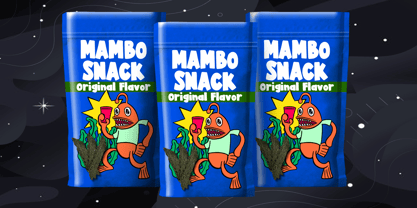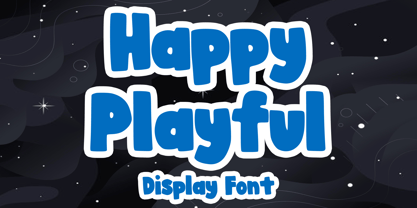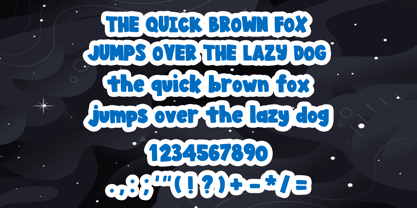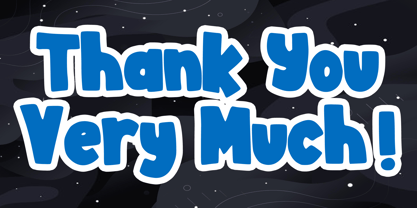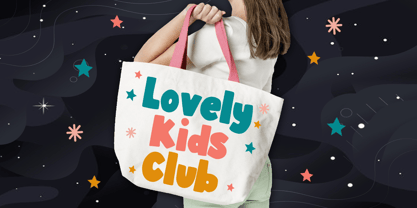
Happy Playful
The Happy Playful Font Family was designed by Gabriel Valentinus and published by Mvmet. Happy Playful contains 1 styles. More about this family
Delightfully dynamic, "Happy Playful" is more than just a font; it's a mood. Bursting with high-spirited richness, this cartoon display typeface effortlessly adds an exuberant touch to any design. Whether you want to evoke whimsy on t-shirts, clothing, or book designs, or splash vibrant fun onto summer party decorations, greeting cards, or stickers, Happy Playful is your trusty type companion. It can transform posters and banners, introducing a bold and playful perspective. Use Happy Playful to craft breathtaking designs and immerse yourself in the joyous atmosphere it conjures. This is more than just a typeface; it's a splash of happiness crafted to perfection. Experience the joy of designing with Happy Playful!